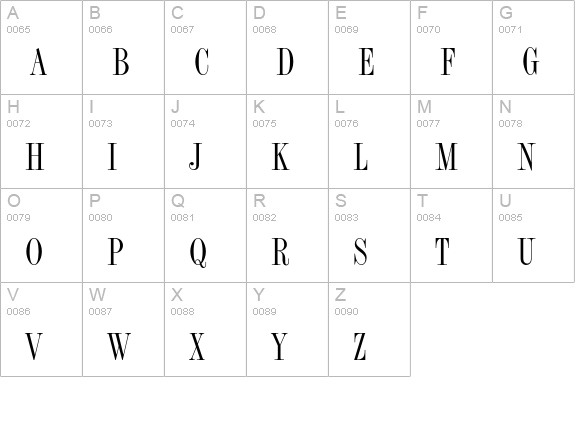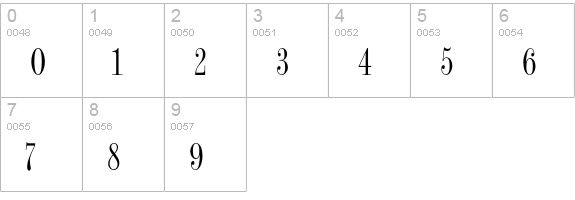
Fashion Compressed Std Font Details
Fashion Compressed Std is a distinctive, condensed-width variant in the Fashion typeface family \xE2\x80\x94 well suited to design and typography projects.
Fashion Compressed Std font is a sleek and modern typeface that exudes a sense of style and sophistication. Its tall and condensed letterforms make it perfect for creating eye-catching headlines and bold statements. The sharp angles and clean lines of this font give it a contemporary edge, making it a versatile choice for a wide range of design projects. The best part about Fashion Compressed Std font is that it is available for free download at FontsMarket.com. Now you can easily access this elegant font and enhance your designs without breaking the bank. Whether you're working on a branding project, a poster design, or a website layout, Fashion Compressed Std font will add a touch of elegance and flair to your work. Download it today and elevate your designs to the next level!